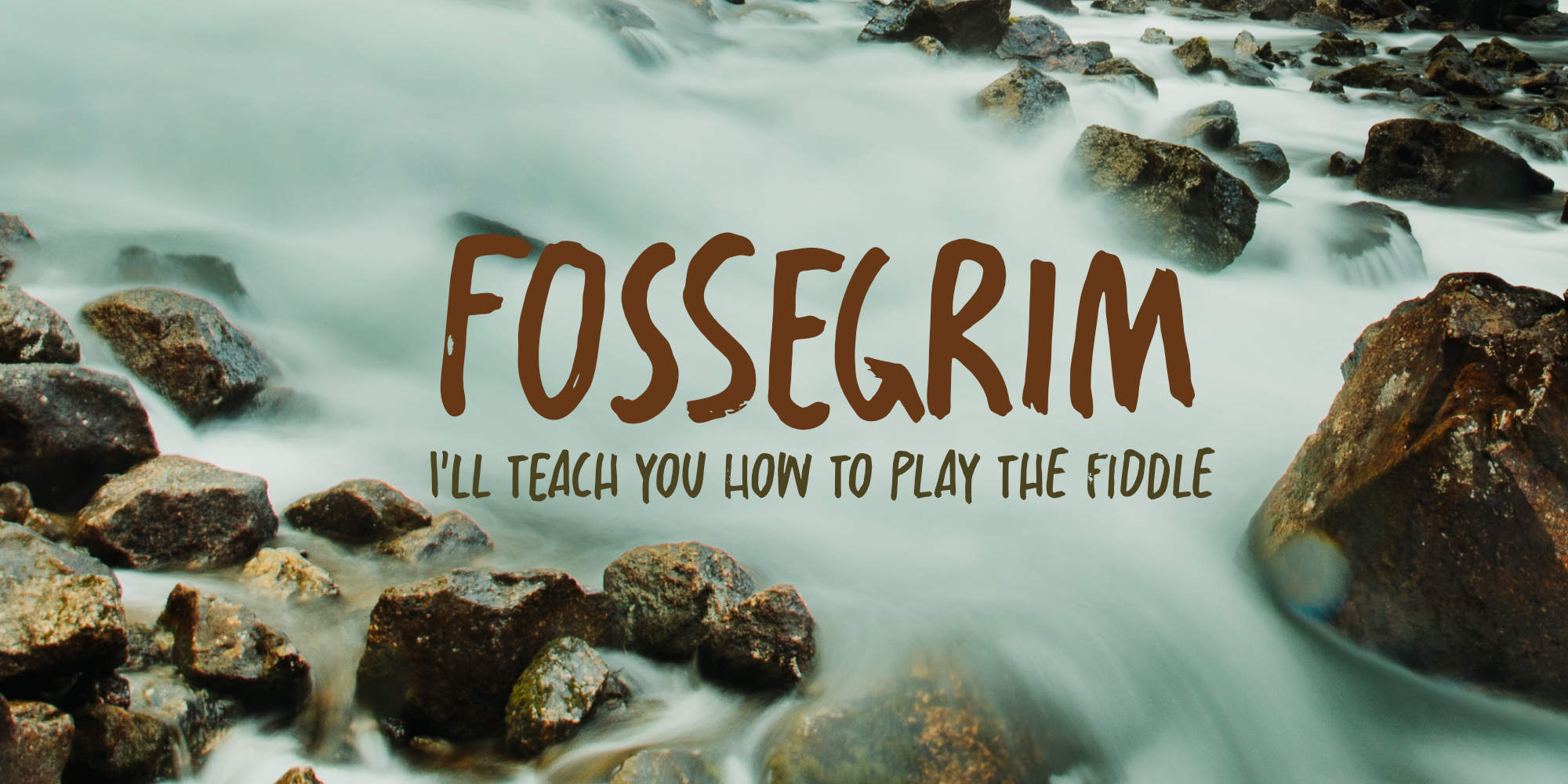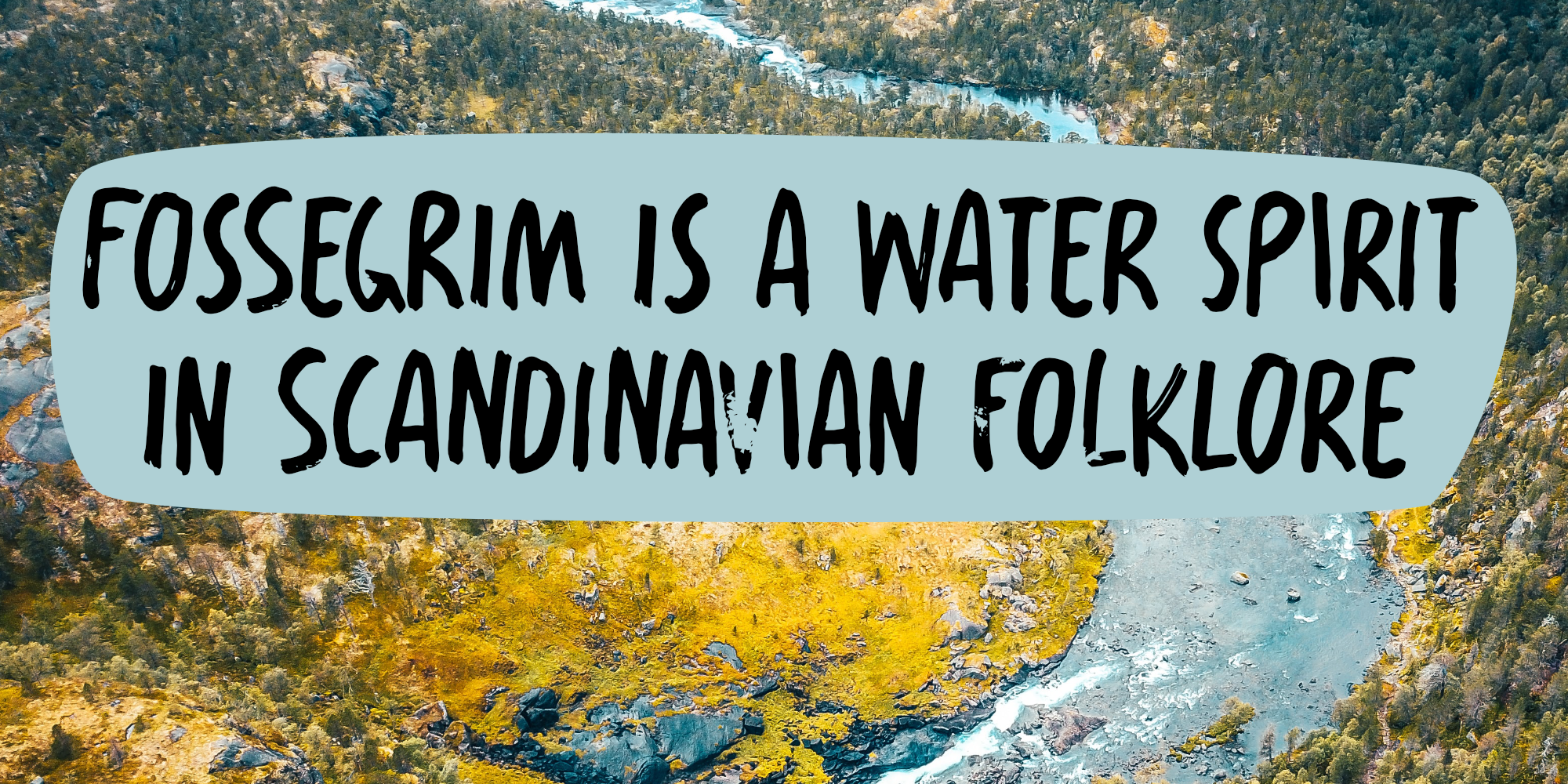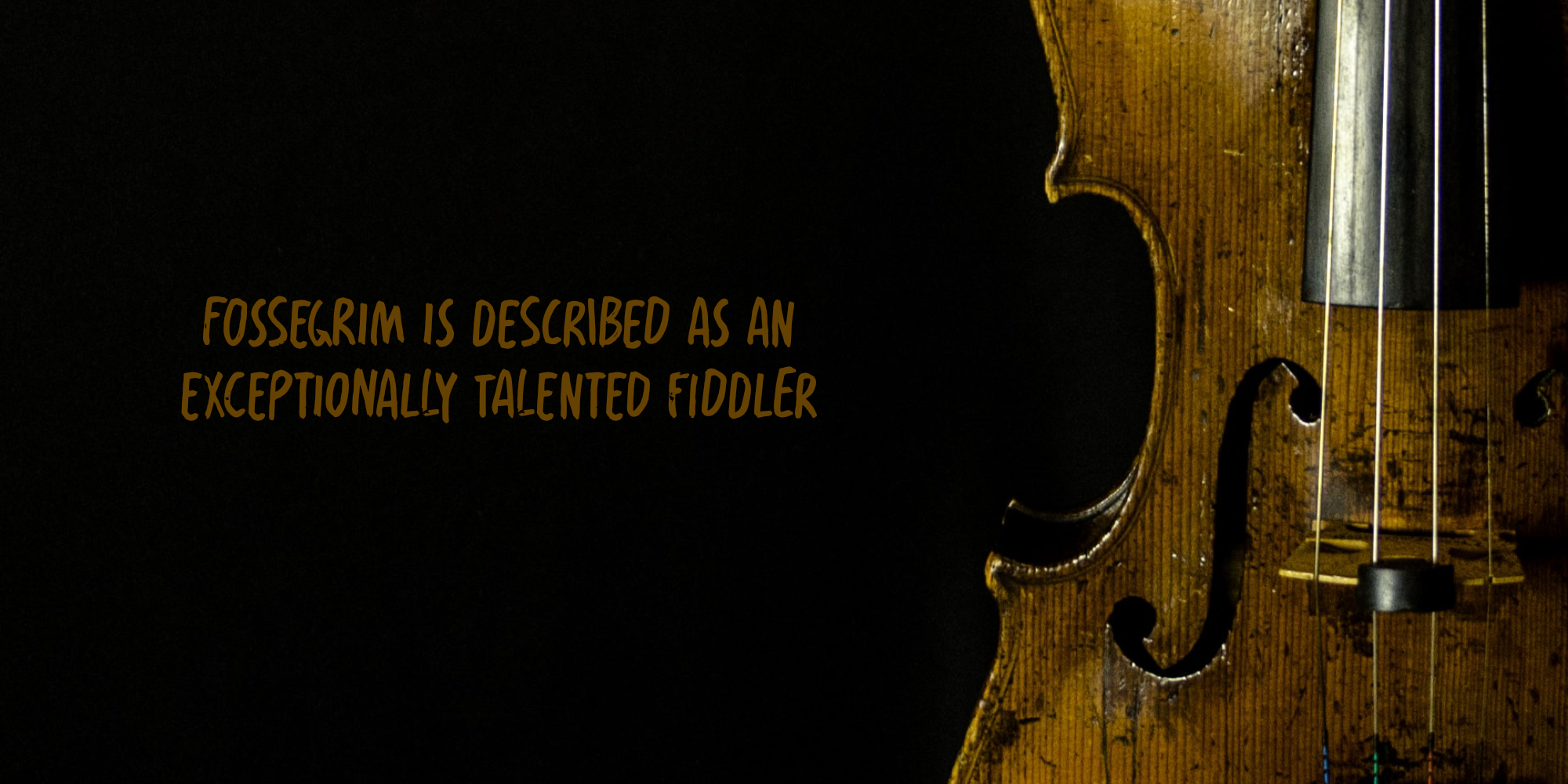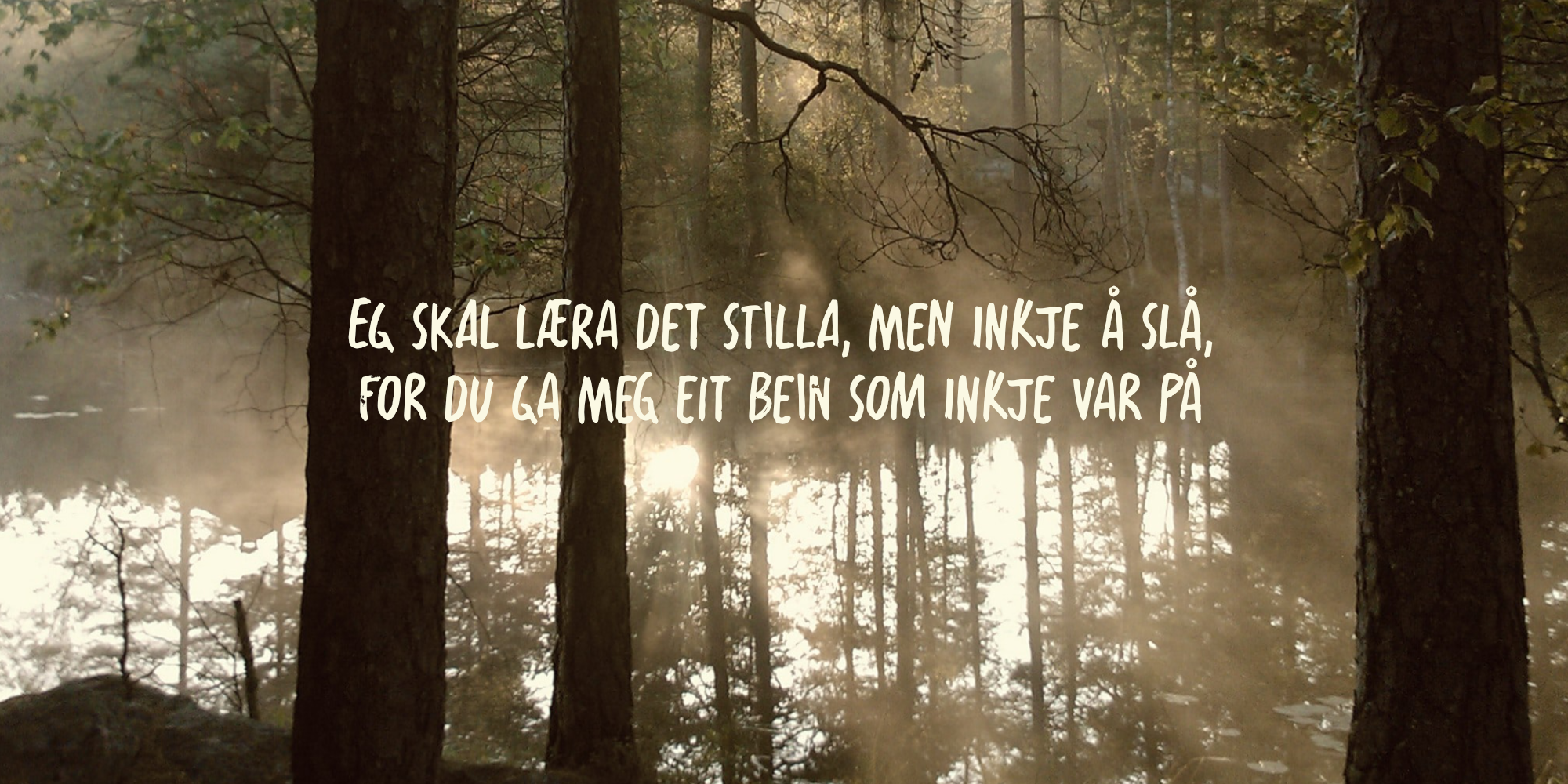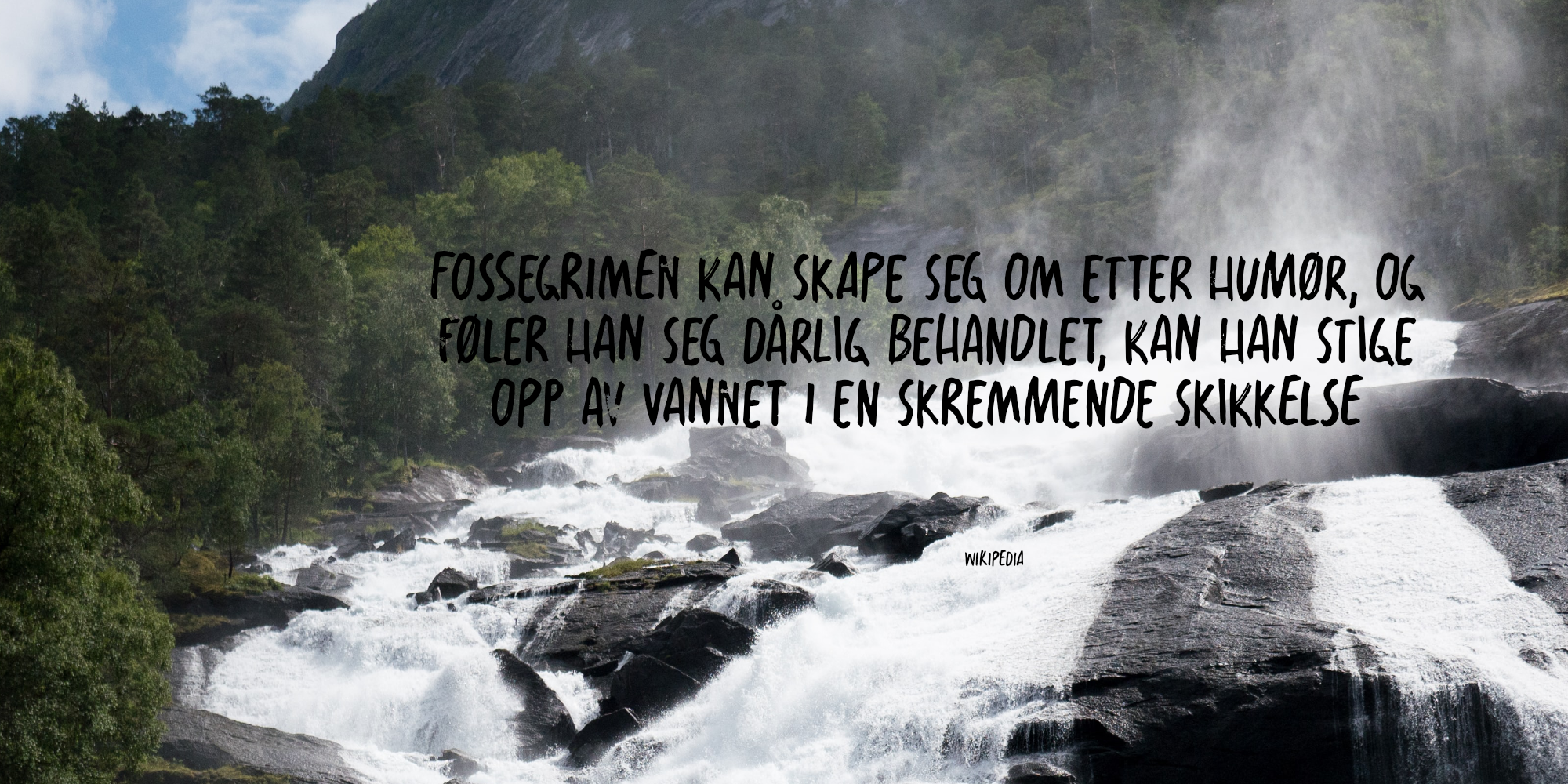
Fossegrim (2 fonts)
Fossegrim font is a little bit weird as well: I made it using a broken bamboo satay skewer and Chinese ink. It comes with extensive language support and a set of alternates for the lower case letters.